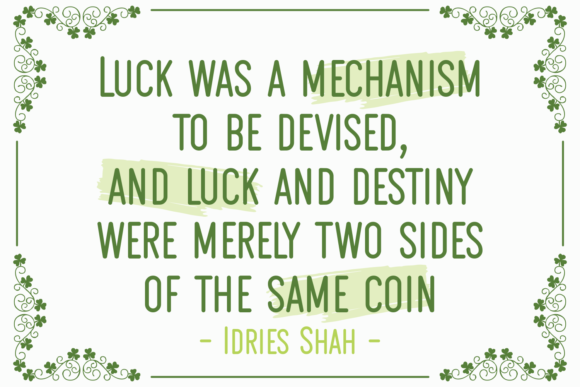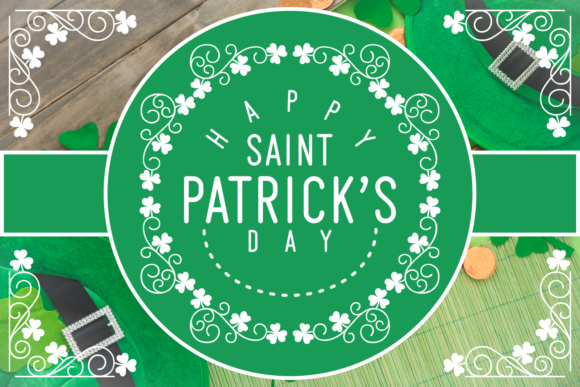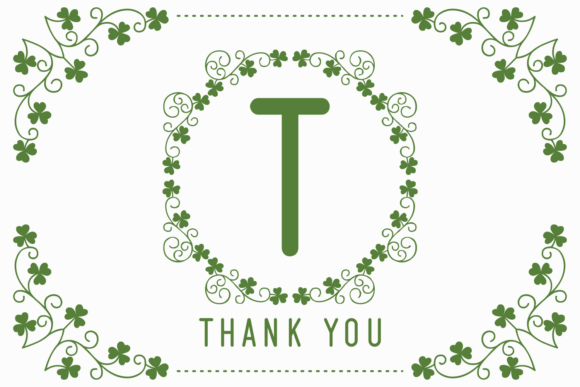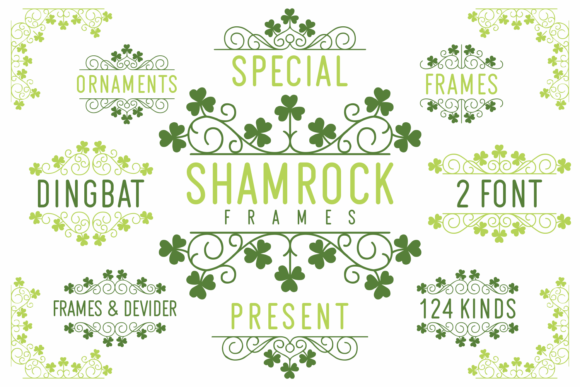
About Shamrock Font
“Shamrock” is a unique and useful dingbats font that brings a touch of Irish charm to your designs. With its collection of shamrock-inspired symbols and icons, this font is perfect for adding a festive and lively element to your projects. Here are some creative ideas on how to use the “Shamrock” font:
1. St. Patrick’s Day Designs: St. Patrick’s Day is a holiday associated with all things Irish, and the “Shamrock” font is a fantastic addition to any St. Patrick’s Day design. Use the shamrock symbols as decorative elements, borders, or patterns in your greeting cards, party invitations, posters, or social media graphics. They will instantly evoke the spirit of the holiday and give your designs a festive touch.
2. Irish-Themed Crafts: If you’re working on craft projects with an Irish or Celtic theme, the “Shamrock” font can be a valuable resource. Use the shamrock symbols as stencils for painting, tracing for embroidery or cross-stitching, or as motifs for scrapbooking and card-making. Incorporating these symbols into your crafts will add an authentic and delightful Irish touch.
3. Pub and Restaurant Branding: If you’re designing for a pub, restaurant, or any business with an Irish theme, the “Shamrock” font can enhance your branding materials. Incorporate the shamrock symbols into your logo, signage, menus, business cards, and promotional materials. The font will help create a distinct identity and convey the Irish charm associated with such establishments.
4. Wedding Invitations: For couples with an Irish heritage or a love for Ireland, the “Shamrock” font can be a beautiful addition to their wedding invitations and stationery. Use the shamrock symbols as decorative elements or incorporate them into monograms, borders, or seals. The font will bring a touch of Irish symbolism and elegance to the wedding stationery.
5. Irish-Themed Apparel and Merchandise: If you’re designing apparel or merchandise with an Irish theme, the “Shamrock” font can play a significant role. Use the symbols to create unique patterns, prints, or motifs on clothing items, accessories, or home decor products. Whether it’s a t-shirt, mug, tote bag, or wall art, the font will add a distinct Irish flair to your designs.
In summary, “Shamrock” is a unique and useful dingbats font that adds a touch of Irish charm to your designs. Whether you’re working on St. Patrick’s Day projects, Irish-themed crafts, pub branding, wedding invitations, or Irish-themed merchandise, the symbols and icons from this font will bring your designs to life and capture the spirit of Ireland. Enjoy exploring the possibilities and let your designs flourish with the delightful shamrock symbols!